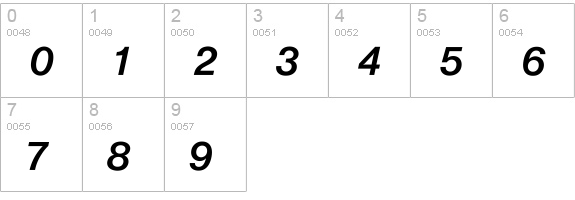
Iolympia DemiBold is a sub-bold, structured variant in the Iolympia typeface family \xE2\x80\x94 well suited to sub-headlines and emphasised passages.
Introducing Iolympia DemiBold, a sensational font that effortlessly combines modern elegance with timeless appeal. Designed with meticulous attention to detail, this font is a true masterpiece, capturing the essence of sophistication and versatility. With its bold and commanding presence, Iolympia DemiBold makes a striking statement in any design project. Its strong and confident letterforms exude a sense of power and authority, making it the perfect choice for headlines, titles, and branding materials. Whether used in print or digital media, this font demands attention and leaves a lasting impression. But what sets Iolympia DemiBold apart is not just its exceptional aesthetics—it's also its accessibility. We believe that great design should be freely available to all, which is why we are excited to announce that Iolympia DemiBold can be downloaded for free at FontsMarket.com. This means that designers, creatives, and enthusiasts can now effortlessly access and incorporate this stunning font into their projects without any financial barriers. The allure of Iolympia DemiBold lies in its versatility. Its clean and refined letterforms lend themselves equally well to both modern and classic designs. Whether you're working on a sleek corporate identity or a vintage-inspired poster, this font effortlessly adapts to any style, delivering exceptional legibility and visual impact. Not only does Iolympia DemiBold offer a wide range of characters, including uppercase, lowercase, numerals, and punctuation, but it also supports multiple languages, making it a truly global font. This means that no matter where you are in the world or what language you need to communicate in, Iolympia DemiBold has got you covered. Embrace the power of great typography with Iolympia DemiBold. Make a statement, captivate your audience, and elevate your designs to new heights. And remember, this remarkable font is freely available to download at FontsMarket.com, ensuring that exceptional design is within reach for everyone.